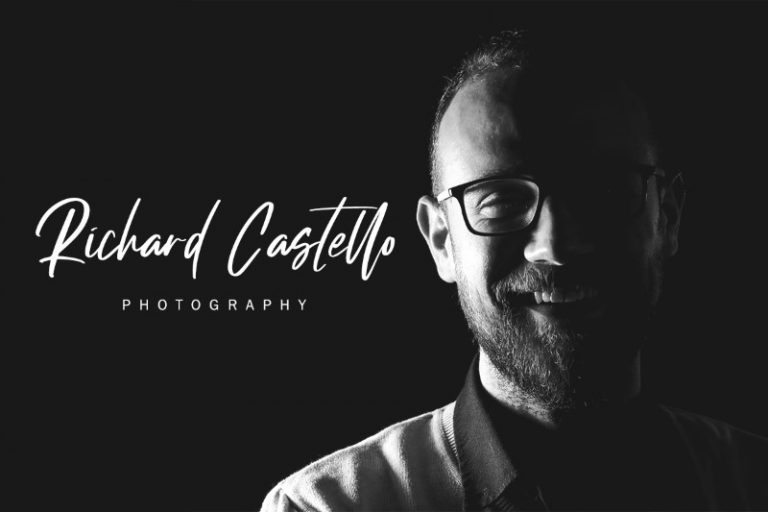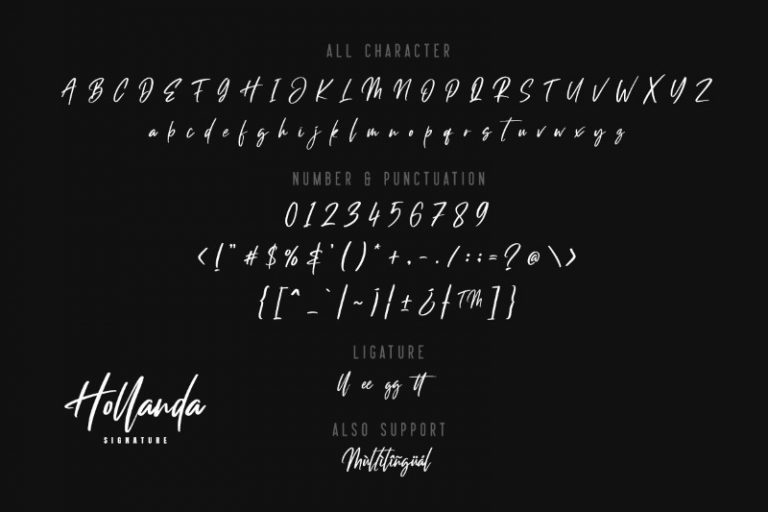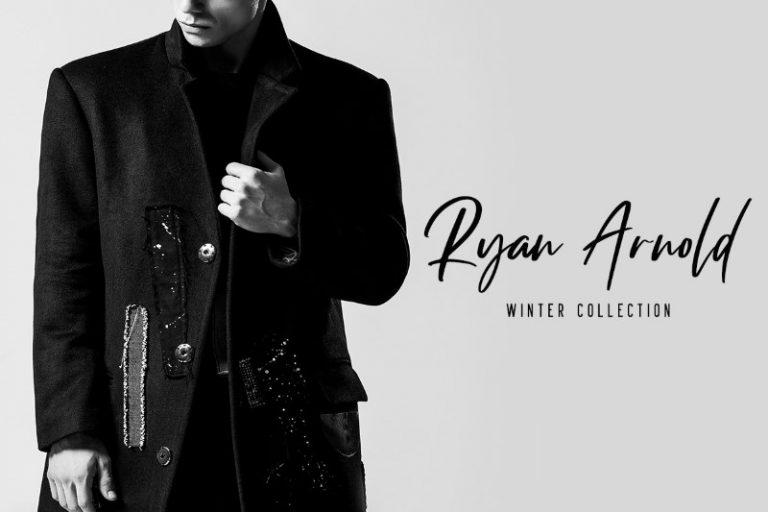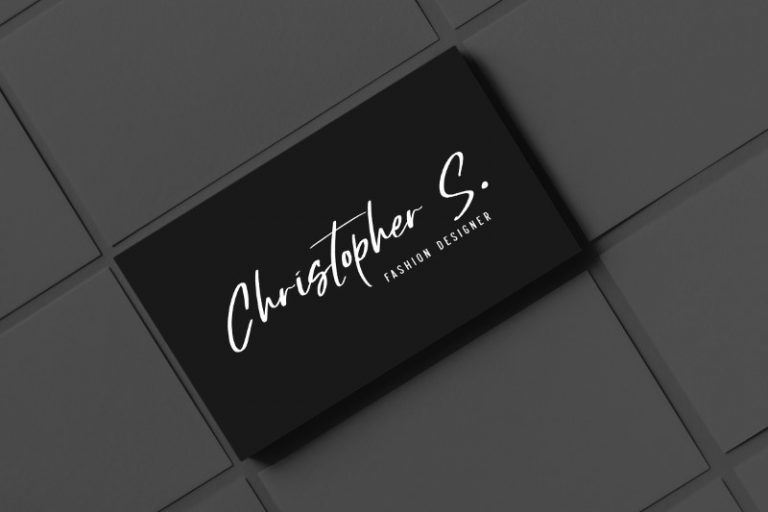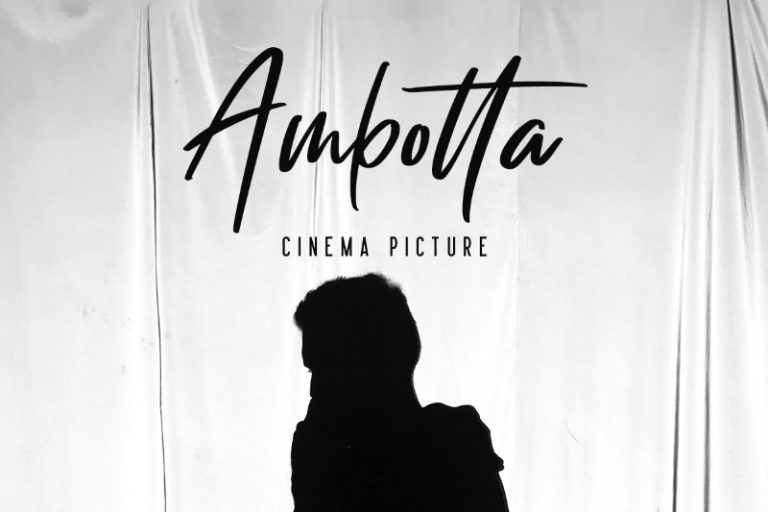
Loving Hollanda
Introducing Loving Hollanda Font. Hollanda Font is a luxury handwritten font . Made with naturally handwritten. The font will make your design more beautiful and powerful. This font is suitable for any design like branding, quotes and etc. I hope you enjoy it !! Thanks for visiting and downloading my font!
• Accents (Multilingual Characters)
• Numerals and Punctuations (OpenType Standard)